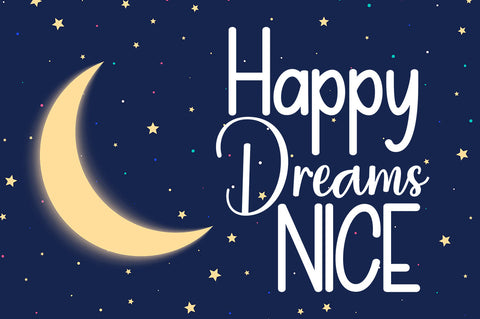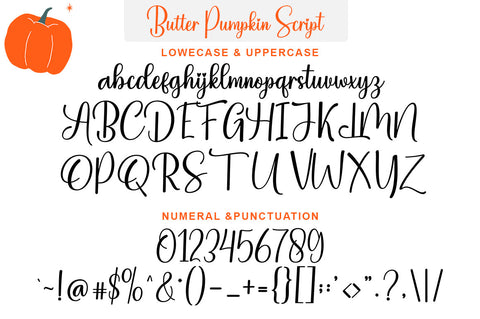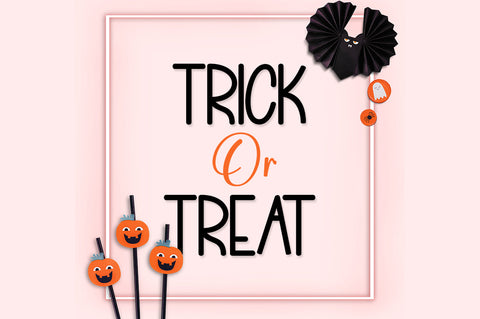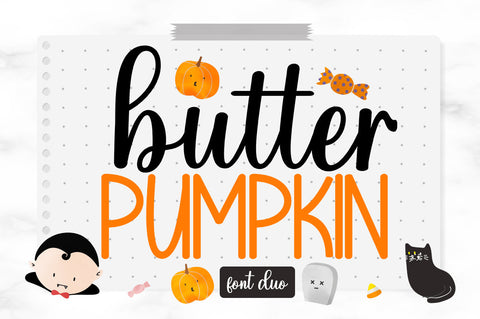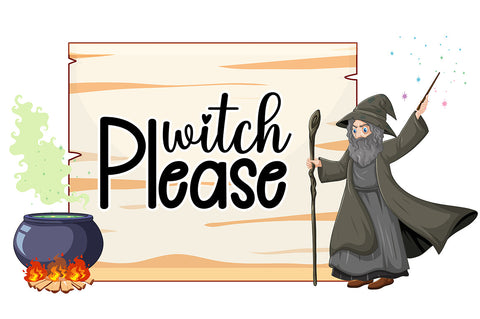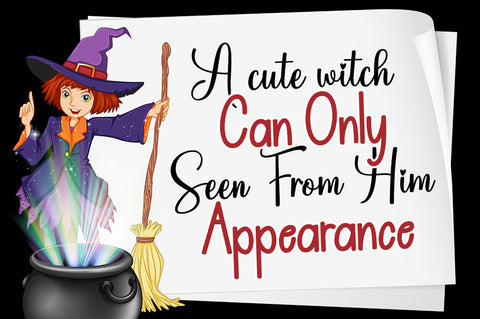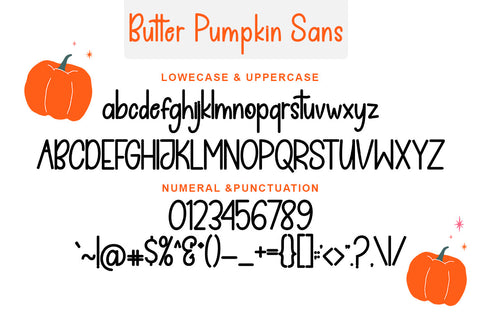
Butter Pumpkin Font Duo
Introducing "Butter Pumpkin Font Duo"
Butter Pumpkin - A Halloween Font
You Can Mix And Match for Your Awesome Project
These fonts are ideal for crafting, branding and decorating your any project. These fonts are perfect for wedding invitations or your blog. Also with their help, you can create a logo or beautiful frame for your home. Or just use for your business, book covers, stationery, marketing, magazines and more.